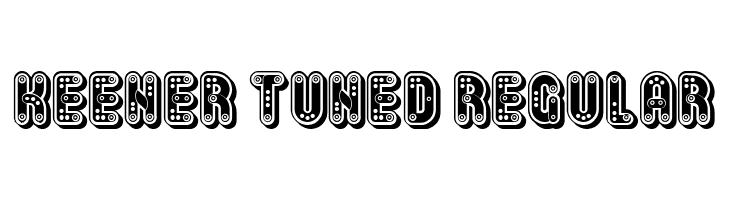
A bold, decorative font with playful, rounded characters and a whimsical style.
A bold, decorative font with a unique drilled pattern and thick outlines.
A bold, decorative font with playful circular cutouts and a strong visual impact.
A bold, decorative font with playful circular cutouts and thick outlines.